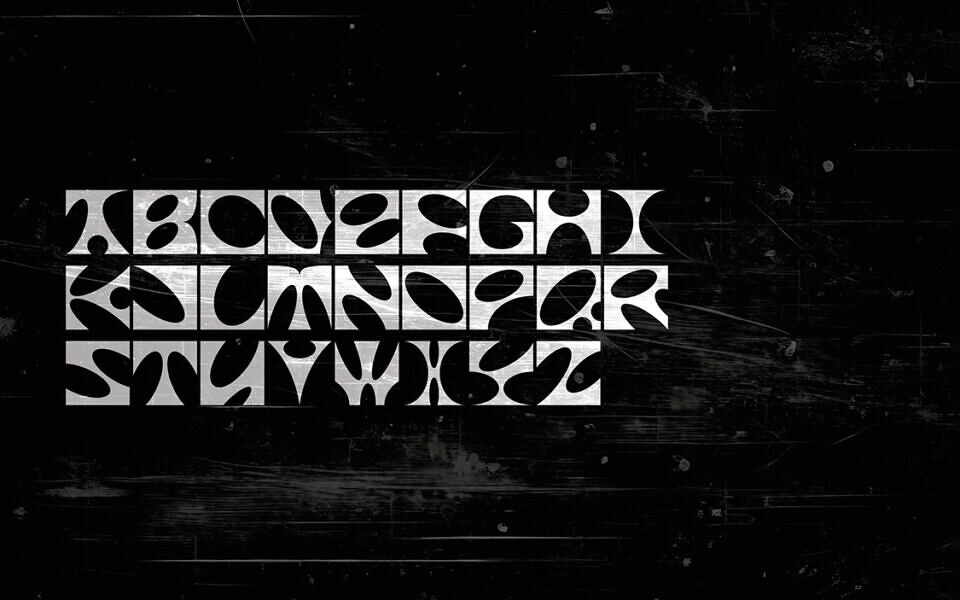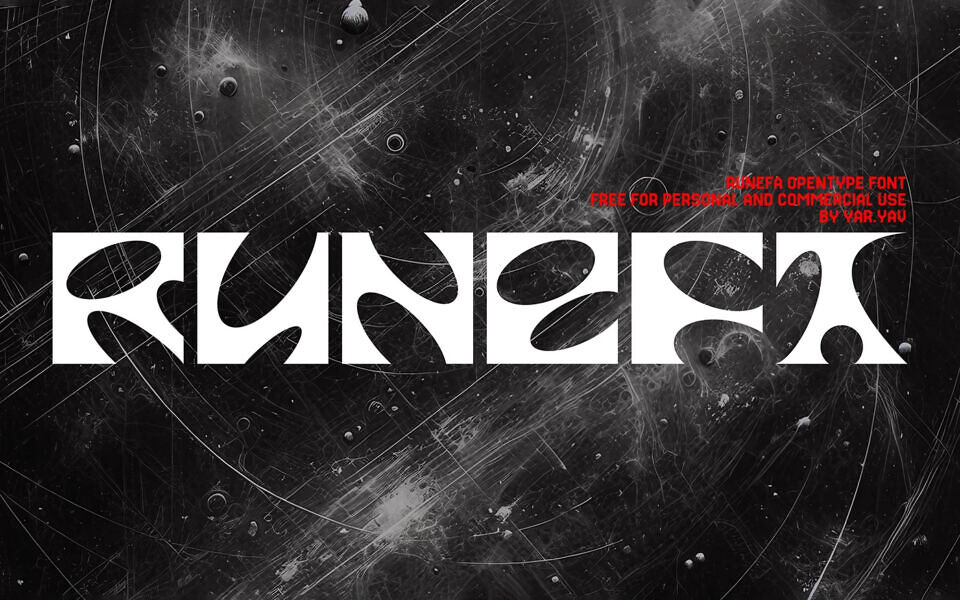
Introducing Runefa, a unique display typeface that masterfully blends sharp edges with smooth, organic curves. This font transforms basic geometric shapes into dynamic, fluid letterforms, creating a striking visual contrast. Runefa is perfect for bold headlines and creative projects.